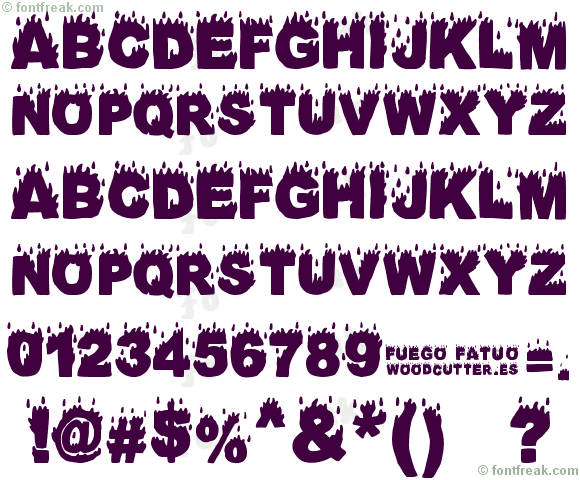
Fuego Fatuo
Fuego Fatuo is a captivating display typeface designed by woodcutter Manero, and it falls under the category of decorative fonts. This unique typeface features a playful, flame-inspired design that gives it a dynamic and energetic feel. The stroke weight is bold and pronounced, creating a striking visual impact, while the contrasting curves and sharp edges add depth and character. Its irregular spacing and whimsical decorative elements contribute to its overall lively appearance, making it an attention-grabbing choice for various creative projects.
The Fuego Fatuo font is versatile and well-suited for a range of use cases. It shines in applications such as movie posters, where its fiery aesthetic can evoke excitement and drama. Additionally, it makes an excellent choice for event flyers, particularly those focused on festivals or parties, where an eye-catching design is essential. Restaurant menus can also benefit from its distinctive style, helping to create a memorable dining experience. Furthermore, this font is perfect for branding efforts aimed at younger audiences or businesses seeking to project a fun and adventurous image.